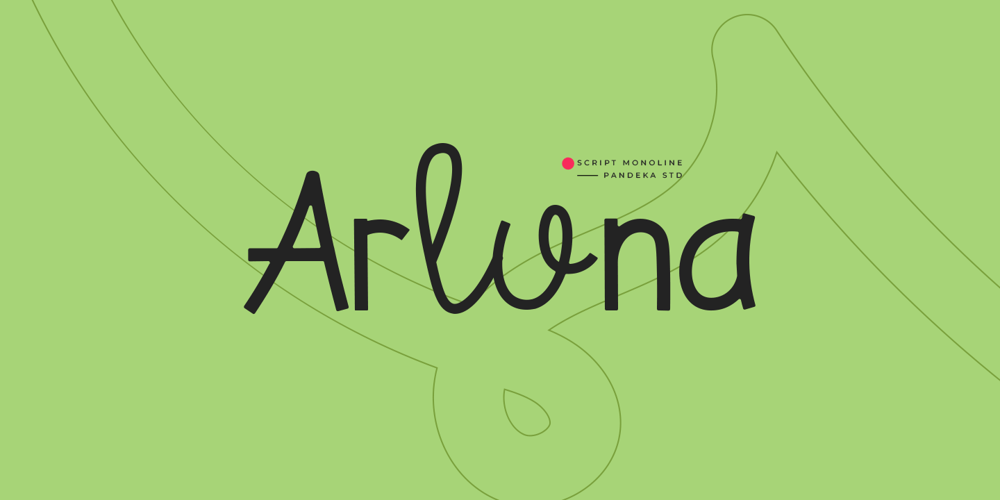
Arluna
Arluna font
Arluna Font Family was designed by Sagara Nararya and published by Pandeka Studio. Arluna contains 2 styles and family package options. Arluna is a casual modern script font with uniquely crafted, flowing letterforms.Featuring beautiful alternate glyphs, accessible via Font Book (Mac) or Character Map (Windows). A tutorial link is included in the zip file.Perfect for branding, invitations, social media, and elegant typography, Arluna adds a charming and sophisticated touch to any design! ✨What’s Included: Main Files formats 2 Style: Regular and Script Full Character Set: Uppercase, lowercase, numbers, symbols, and punctuation Easy to Use: Works on both PC & Mac Compatible with Adobe Illustrator, Photoshop, Microsoft Word, Canva, and more PUA Encoded: Fully accessible without additional software Language Support: Danish, English, Estonian, Filipino, Finnish, French, Friulian, Galician, German, Gusii, Indonesian, Irish, Italian, Luxembourgish, Norwegian Bokmål, Norwegian Nynorsk, Nyankole, Oromo, Portuguese, Romansh, Rombo, Spanish, Swedish, Swiss-German, Uzbek (Latin)Script Monoline Font Elegant Lettering Smooth Handwriting Minimalist Typography Timeless Design Modern CalligraphyThank you and happy designing!Pandeka Studio